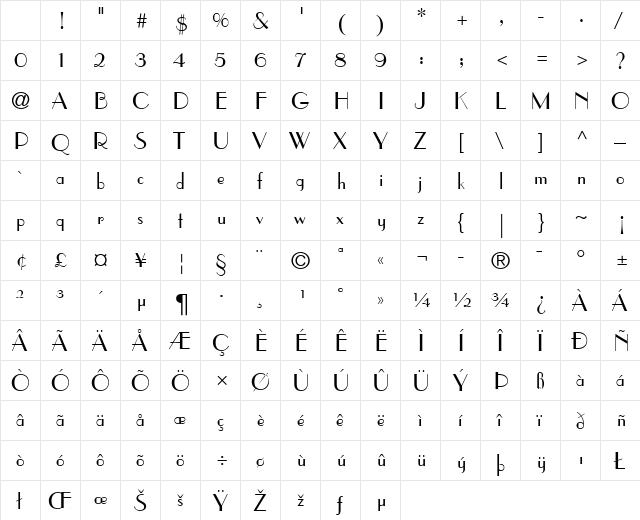
Parisian LT is a composed and adaptable typeface that performs quietly and consistently across a wide range of design contexts. Its slender proportions lend an understated elegance to any composition.